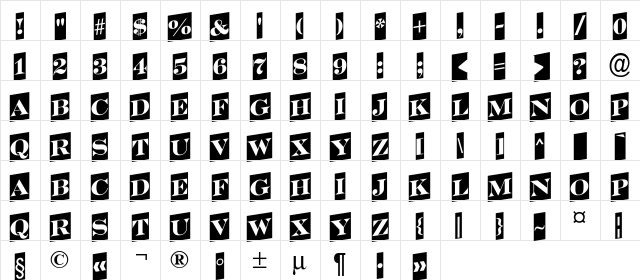
a_SeriferTitulCmUp Regular
Design Context for a_SeriferTitulCmUp Typeface
a_SeriferTitulCmUp brings classic typographic sensibility to the table — its serifs and measured letterforms reflect centuries of print heritage.
Pro Tip: Use a_SeriferTitulCmUp for editorial body copy and considered headline work. Pair with a neutral sans for UI elements or captions to create a classic hierarchy.